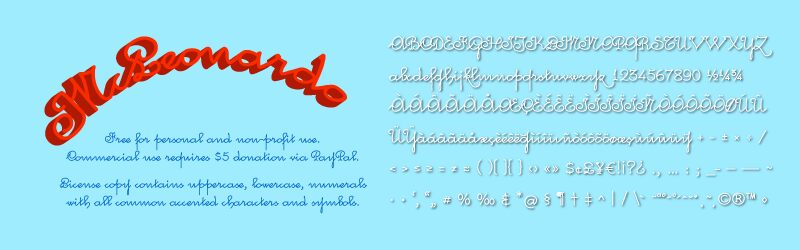
McLeonardo by Murat Yegul is a free calligraphic script with extravagant loops and a lively, continuous line. Its rounded capitals curl back into themselves, and several strokes sweep far beyond the main letter shapes. The effect is ornate and unmistakably theatrical.
Those looping forms can echo ribbon illustrations and scrolling border motifs in event posters, invitations, and boutique packaging. Its decorative flourish is especially suited to audiences drawn to romantic celebrations, flamboyant fashion, cabaret-inspired entertainment, and vintage stage culture.